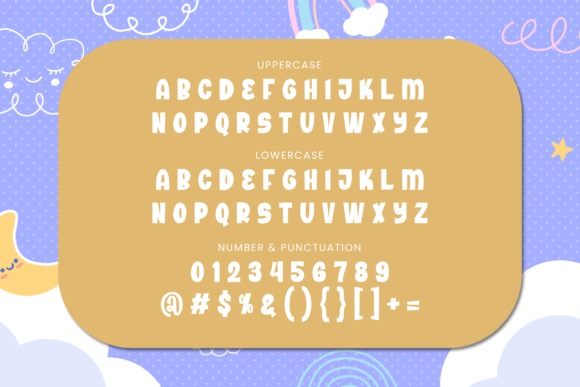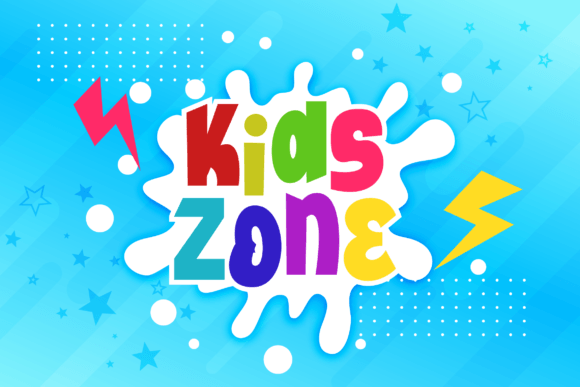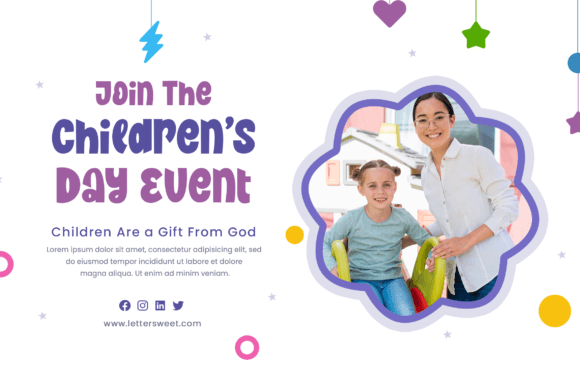
Introduction to Showzee Font
Have you ever stared at a blank canvas, eager to bring your creative vision to life, only to be held back by the perfect font to match your design? That’s where the Showzee Font comes in – a delightful display font that’s sure to add a touch of whimsy to your next creative project.
With its transparent background and high-quality design, the Showzee Font is a valuable resource for designers of all levels. Whether you’re working on a commercial project or a personal hobby, this free download is sure to elevate your design game.
As a design enthusiast, you know how important it is to have access to high-quality design resources like the Showzee Font. This versatile font is perfect for adding a playful touch to your designs, and its wide range of applications makes it a must-have in any designer’s toolkit.
Key Features of Showzee Font
- High-quality, elegant design suitable for creative projects and presentations, offering a unique touch to your visual content.
- Transparent background option, allowing users to easily integrate the font into various design elements and backgrounds.
- Resolution-independent, ensuring crisp and clear display across different resolutions and devices.
- Supports a wide range of languages, making it a versatile design resource for global creative projects.
- Designed with precision and care, resulting in a high-quality font that is perfect for various design applications, from digital to print media.
Honest Review: Showzee Font
As a designer, I’m always on the lookout for high-quality design resources to elevate my creative projects. The Showzee Font caught my eye due to its modern and sleek aesthetic.
What works well with the Showzee Font is its versatility. It can be used for a wide range of applications, from web design to print materials. The font’s clean lines and simple design make it perfect for creating a professional and polished look.
- ✨ High-quality design: The Showzee Font is well-crafted and looks great on both light and dark backgrounds.
- ✨ Transparent background: This feature allows for seamless integration with other design elements.
One limitation of the Showzee Font is its limited character set. While it’s perfect for headings and titles, it may not be suitable for extensive body text.
Overall, I’m impressed with the Showzee Font. It’s a great design resource that can add a touch of sophistication to any creative project. With its high-quality design and transparent background, it’s definitely worth considering for your next design project.
The Showzee Font is a free design resource that offers a high-quality, unique font perfect for any creative project. With its transparent background, this font can be easily layered over images or other design elements.
The Showzee Font is perfect for a variety of design projects, including:
- Branding
- Marketing materials